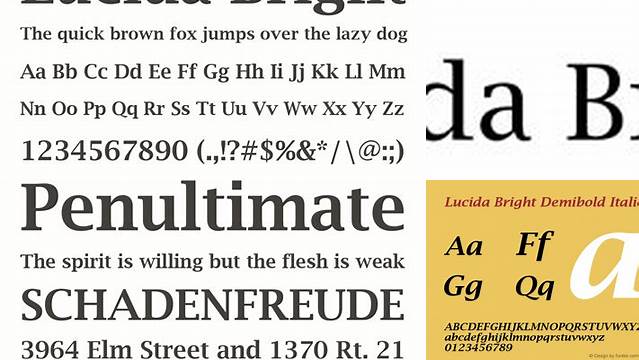
Introduction: Exploring the Elegance of Lucida Bright
Hey guys! Let's dive into the world of typography, specifically focusing on the Lucida Bright font. This font is renowned for its clarity and elegance, making it a favorite among designers and typographers. If you're looking to add a touch of sophistication to your projects, understanding the nuances of Lucida Bright and how to download it for free is essential. Lucida Bright is more than just a typeface; it's a versatile tool that can enhance readability and visual appeal across various mediums, from print to digital. In this comprehensive guide, we'll explore the characteristics of Lucida Bright, its ideal use cases, and most importantly, how you can get your hands on this beautiful font without spending a dime. Whether you're a seasoned designer or just starting, mastering the use of fonts like Lucida Bright can significantly elevate the quality of your work. So, let's embark on this typographic journey and unlock the potential of Lucida Bright!
Lucida Bright is a serif typeface that exudes a sense of professionalism and clarity. Its design is characterized by its clean lines, balanced proportions, and excellent readability, making it suitable for a wide range of applications. From body text in books and articles to headings and subheadings in reports and presentations, Lucida Bright offers a versatile solution for various design needs. The font's elegant appearance also makes it a popular choice for projects that require a touch of sophistication, such as invitations, brochures, and branding materials. Understanding the nuances of Lucida Bright's design is crucial for effectively utilizing it in your projects. Its serifs provide a sense of formality, while its open counters and generous spacing contribute to its readability. These characteristics make Lucida Bright an excellent choice for both print and digital media, ensuring that your message is conveyed clearly and effectively. When choosing a font for your project, it's essential to consider the overall tone and message you want to convey. Lucida Bright's versatility allows it to adapt to various design styles, making it a valuable asset in any designer's toolkit. So, whether you're working on a corporate report or a creative invitation, Lucida Bright can help you achieve the desired aesthetic.
Moreover, Lucida Bright's historical context adds to its significance in the world of typography. Designed by Charles Bigelow and Kris Holmes, Lucida Bright is part of the Lucida family, which was created to address the challenges of digital typography in the early days of personal computing. The Lucida family of fonts was specifically designed to be highly legible on low-resolution screens and printers, making it a pioneer in the field of digital typography. Lucida Bright, with its refined serifs and balanced design, represents the evolution of this family, offering a more polished and sophisticated look while maintaining its excellent readability. This historical context provides a deeper appreciation for the font's design and its contribution to the development of digital typography. Understanding the history behind a font can also inform your design choices, allowing you to use it more effectively and purposefully. For instance, knowing that Lucida Bright was designed for digital environments can influence your decision to use it for web design or e-books. In addition to its historical significance, Lucida Bright has also been widely adopted in various industries and applications. Its clean and professional appearance makes it a popular choice for corporate communications, academic publications, and legal documents. The font's versatility extends to creative projects as well, where it can be used to create elegant and sophisticated designs. This widespread adoption speaks to the font's quality and its ability to meet the diverse needs of designers and typographers. By understanding the historical context and the widespread use of Lucida Bright, you can gain a better appreciation for its value as a typographic tool.
Lucida Bright Alternatives: Exploring Similar Fonts
Okay, so maybe snagging Lucida Bright for free is a bit of a treasure hunt. But don't sweat it! There are tons of fonts out there that give off a similar vibe. Let's explore some Lucida Bright alternatives that can bring the same level of sophistication and readability to your projects. Finding the perfect font is like finding the right ingredient for a recipe – it can make or break the final result. When it comes to typography, the choice of font can significantly impact the overall aesthetic and message of your design. If Lucida Bright is the flavor you're after, but you're looking for a more accessible option, there are several fonts that offer similar characteristics. These alternatives may share Lucida Bright's clean lines, elegant serifs, or excellent readability, making them suitable replacements in various design contexts. In this section, we'll delve into some of the best Lucida Bright alternatives, exploring their unique features and how they can be used to achieve the same visual effect. Whether you're working on a corporate report, a website design, or a creative invitation, these font alternatives can help you create a polished and professional look.
One popular alternative to Lucida Bright is Georgia. This serif typeface is known for its excellent readability, especially on screens. Georgia's design features open counters and a generous x-height, which contribute to its clarity and legibility. Like Lucida Bright, Georgia has a classic and elegant appearance, making it suitable for a wide range of applications. Another excellent alternative is Times New Roman. This font is a classic choice for body text and is widely used in books, newspapers, and academic publications. Times New Roman's serifs provide a sense of formality, while its balanced proportions ensure readability. While it may not have the same level of sophistication as Lucida Bright, Times New Roman is a reliable and versatile option for many design projects. If you're looking for a font with a more modern feel, consider Merriweather. This serif typeface was designed specifically for on-screen reading and features a slightly condensed letterform that makes it highly legible in digital environments. Merriweather's robust design and open counters make it an excellent alternative to Lucida Bright for web design and other digital applications. In addition to these well-known fonts, there are also several lesser-known typefaces that offer similar characteristics to Lucida Bright. Exploring font libraries and online resources can help you discover hidden gems that perfectly match your design needs. When choosing a font alternative, it's essential to consider the overall tone and message of your project. Each font has its own unique personality, and selecting the right one can significantly impact the effectiveness of your design. By exploring different font options and experimenting with various combinations, you can find the perfect alternative to Lucida Bright for your project.
When evaluating font alternatives, it's helpful to compare their key characteristics to those of Lucida Bright. Lucida Bright is known for its clean lines, balanced proportions, and excellent readability, as we discussed. It has a refined and elegant appearance, making it suitable for formal and professional applications. When considering alternatives, look for fonts that share these qualities. Pay attention to the font's serifs, which contribute to its overall style and readability. Serifs are the small strokes that extend from the ends of the letterforms, and they can vary in shape and size. Some serifs are more pronounced and decorative, while others are more subtle and refined. The shape of the serifs can significantly impact the font's overall appearance. Also, consider the font's x-height, which is the height of the lowercase letters. A font with a generous x-height will generally be more legible, especially in smaller sizes. The spacing between letters and words is another important factor to consider. Adequate spacing is essential for readability, as it allows the eye to easily distinguish between individual characters and words. Fonts with tight spacing can be challenging to read, while fonts with excessive spacing may appear disjointed. In addition to these technical characteristics, it's also important to consider the font's overall personality and how it aligns with your design goals. Some fonts have a more formal and traditional feel, while others are more modern and casual. Choosing a font that matches the tone and message of your project is crucial for creating a cohesive and effective design. By carefully evaluating font alternatives and comparing their characteristics to those of Lucida Bright, you can find the perfect font for your project.
In conclusion, the journey of finding and using fonts is an ongoing process of learning and discovery. The world of typography is vast and diverse, offering a seemingly endless array of options to choose from. Each font has its own unique personality and characteristics, making it suitable for different design contexts. By taking the time to explore and understand these nuances, you can develop a keen eye for typography and create designs that are both visually appealing and effective in conveying your message. Lucida Bright, with its timeless elegance and excellent readability, is a prime example of a font that can elevate your designs. While securing a free download of Lucida Bright may present challenges, the knowledge gained in the search and the exploration of alternatives can be equally valuable. The alternatives we've discussed, such as Georgia, Times New Roman, and Merriweather, offer similar qualities and can serve as excellent substitutes in various design projects. The key takeaway is to approach typography with curiosity and a willingness to experiment. Try different font combinations, explore various font sizes and styles, and pay attention to the overall impact of your font choices. By embracing the world of typography and continually honing your skills, you can unlock the power of fonts and create designs that are truly exceptional. So, keep learning, keep experimenting, and most importantly, keep creating!